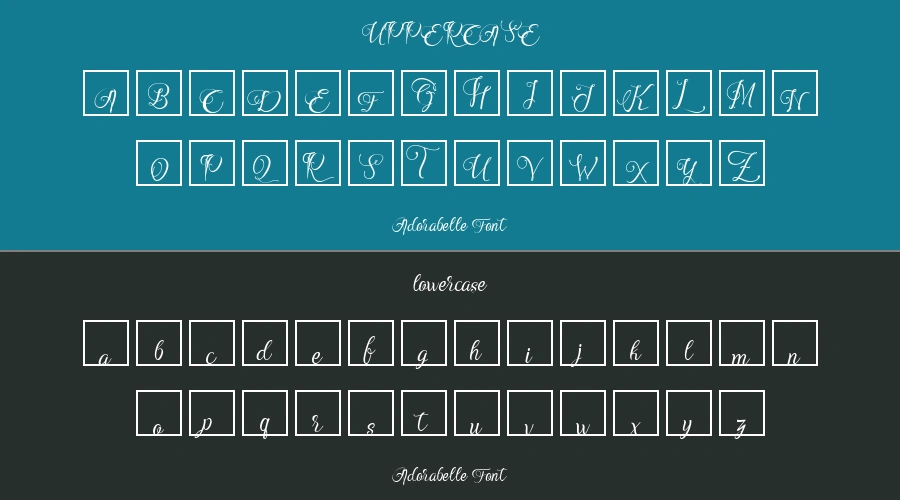
About Adorabelle Font
Adorabelle Font stands out for its distinctive combination of humanist proportions and refinement. Ideal for traditional magazines, it provides the accuracy and quality certification that professional projects demand. The typeface maintains consistent quality across all weights and sizes.
Key features include refined creative flair and practical lining figures, enhancing typographic expression. In technical diagrams applications, Adorabelle Font demonstrates exceptional small text clarity. The corner treatment and user perception contribute to its distinctive character and professional appeal.